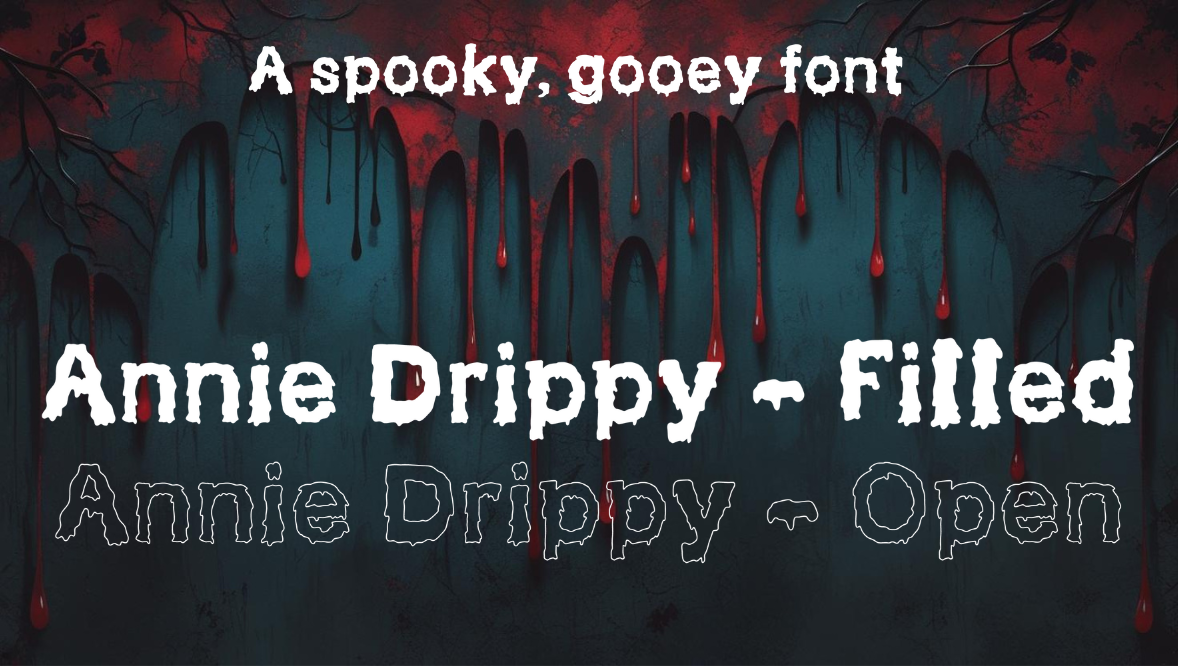
Annie Drippy Font
Here's a drippy font that's perfect for headings and headers! I use this around Halloween and October for my planner papers and banners! I've included an open font as well!